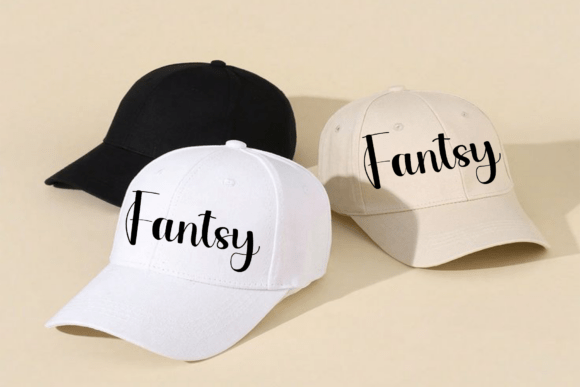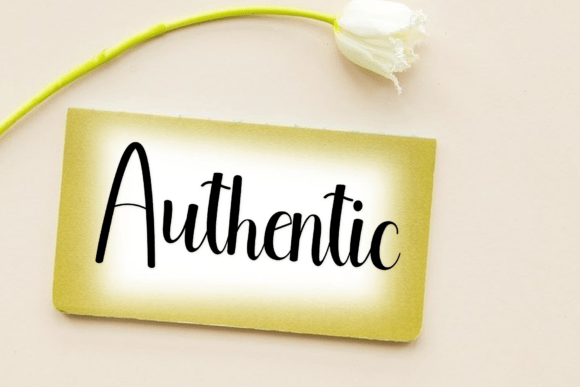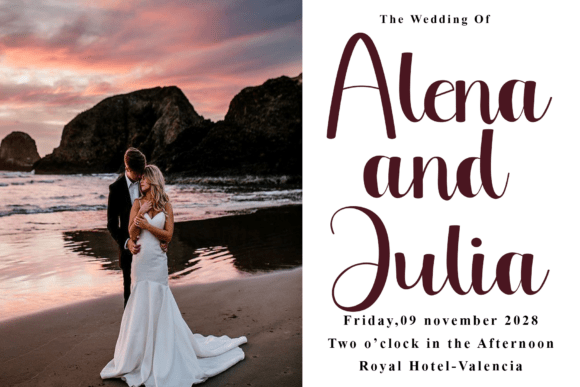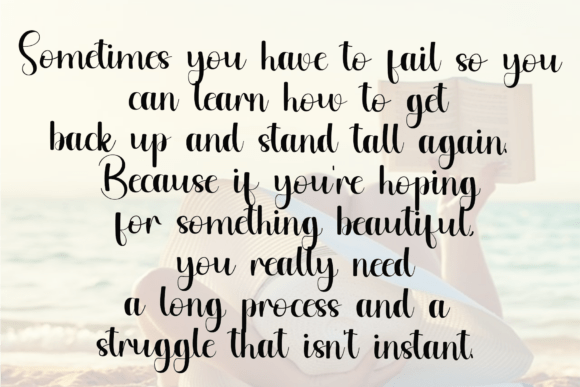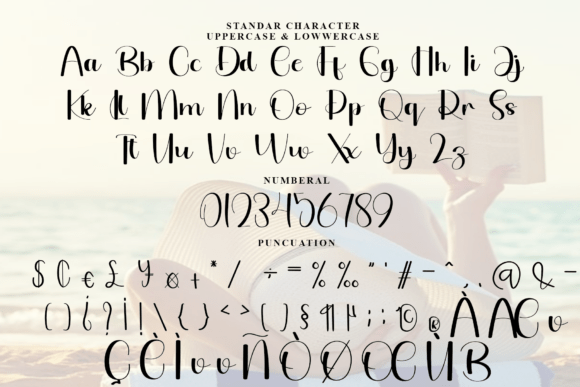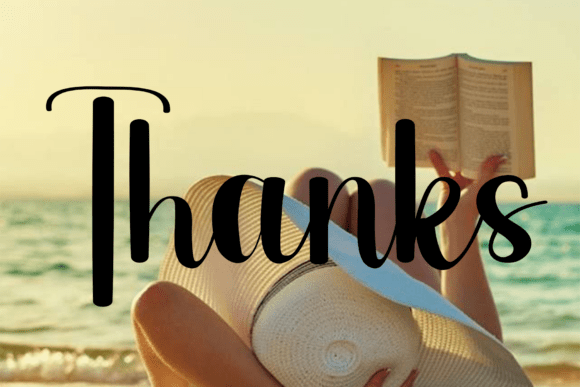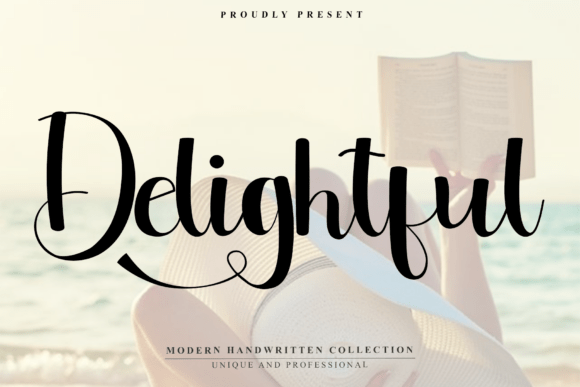
Introducing Delightful Font: Elevate Your Designs with Elegance and Sophistication
In the world of typography, a font can make or break the visual identity of a brand, product, or creative project. For designers and crafters seeking a typeface that exudes sophistication, uniqueness, and professionalism, Delightful Font is an exceptional choice. This beautiful script font is part of a modern handwritten collection, designed to add a touch of elegance and refinement to various design applications.
The Characteristics of Delightful Font
Delightful Font is a masterpiece of typographic design, characterized by its:
- High-contrast strokes: The font features thick, confident downstrokes and delicate hairline connectors, creating a sense of rhythm and fluidity.
- Vertically elongated letterforms: The letters are stretched upwards, giving the font a sense of grandeur and sophistication.
- Expansive, looping flourish: The flourishes add a touch of drama and elegance, making Delightful Font perfect for headlines, titles, and emphasis.
Delightful Font is an incredibly versatile typeface, suitable for a wide range of creative projects, including:
- Boutique brand identities: Establish a luxurious and high-end image for your brand with Delightful Font.
- Upscale beauty packaging: Add a touch of sophistication to your product packaging and stand out in the beauty industry.
- Romantic wedding stationery: Create beautiful and elegant wedding invitations, save-the-dates, and other stationery with Delightful Font.
- Editorial travel headers: Add a sense of adventure and luxury to your travel articles and blog posts with Delightful Font.
Why Choose Delightful Font?
With Delightful Font, you can:
- Elevate your designs: Add a touch of sophistication and elegance to your creative projects.
- Stand out from the crowd: Delightful Font is a unique and distinctive typeface that will set your designs apart.
- Enhance your brand image: Use Delightful Font to create a luxurious and high-end image for your brand.
Tips for Using Delightful Font
To get the most out of Delightful Font, consider the following tips:
- Use it as a headline font: Delightful Font is perfect for headlines and titles, where its elegant and sophisticated feel can shine.
- Pair it with a sans-serif font: Combine Delightful Font with a clean sans-serif font for a beautiful and harmonious contrast.
- Experiment with font sizes: Delightful Font looks stunning in large sizes, but it can also be used for body text and smaller applications.
Delightful Font is a stunning script font that embodies sophistication, uniqueness, and professionalism. With its high-contrast strokes, vertically elongated letterforms, and expansive flourishes, it’s perfect for designers and crafters seeking to elevate their designs and create a luxurious image. Whether you’re working on a boutique brand identity, upscale beauty packaging, romantic wedding stationery, or editorial travel headers, Delightful Font is an exceptional choice.